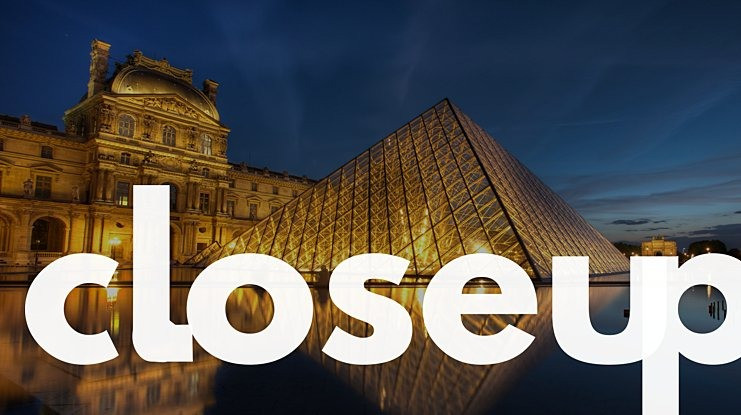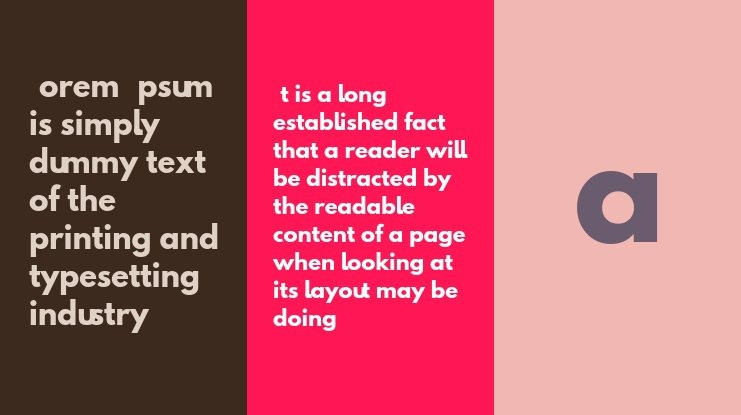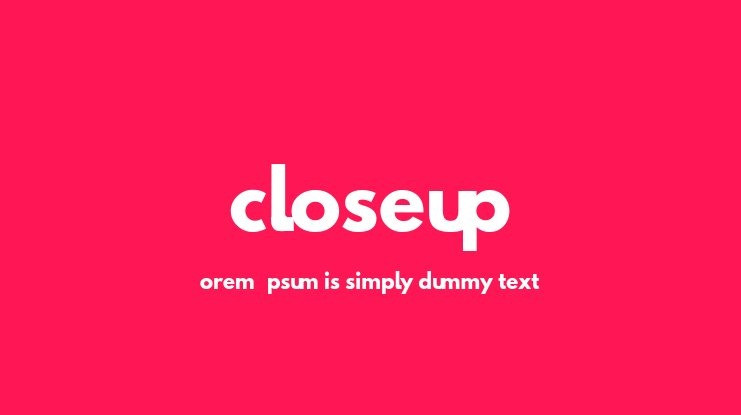
Closeup Sans Serif Font, It would be a perfect choice to design posters, affiches, logos, t-shirt and magazine prints, eye-pleasing typographic designs and more.